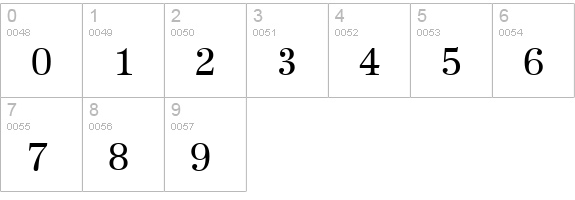
AntiquaStd-Regular is the standard, neutral variant in the AntiquaStd typeface family \xE2\x80\x94 well suited to general body text, paragraphs, and standard typographic work.
The AntiquaStd-Regular font is a timeless and classic typeface that exudes elegance and sophistication. Its clean lines and balanced proportions make it a versatile choice for a wide range of design projects. This font is perfect for conveying a sense of tradition and refinement, making it ideal for use in branding, editorial design, and more. What sets AntiquaStd-Regular apart is its ability to seamlessly blend into both modern and traditional design styles, making it a truly versatile font for any project. Whether you're creating a sleek corporate identity or a vintage-inspired poster, this font has you covered. Best of all, AntiquaStd-Regular is available for free download at FontsMarket.com. So you can easily access this beautiful and versatile font to elevate your design projects without breaking the bank. Don't miss out on this opportunity to add a touch of timeless elegance to your work with AntiquaStd-Regular font.